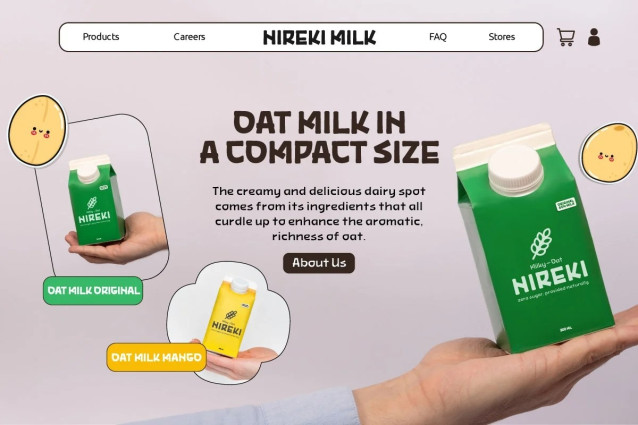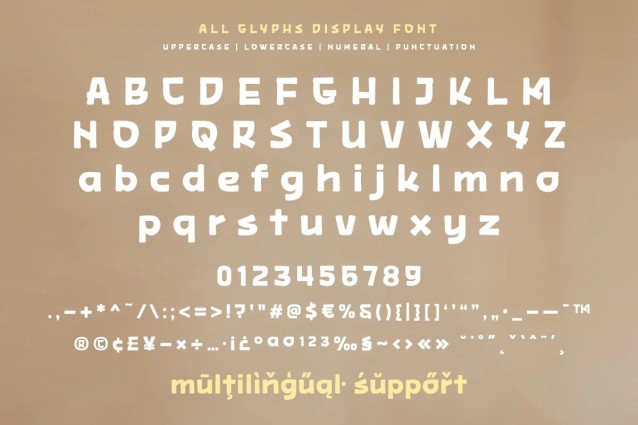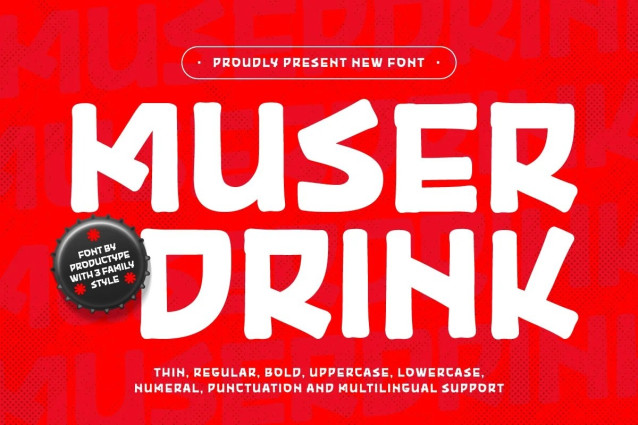
MUSER DRINK trial Font
MUSER DRINK trial Font is a bold and playful display font crafted to bring a splash of freshness to beverage branding, especially for summer-themed products. It’s fun and chunky letterforms are perfect for juice labels, soda packaging, café menus, and promotional posters that need to stand out.